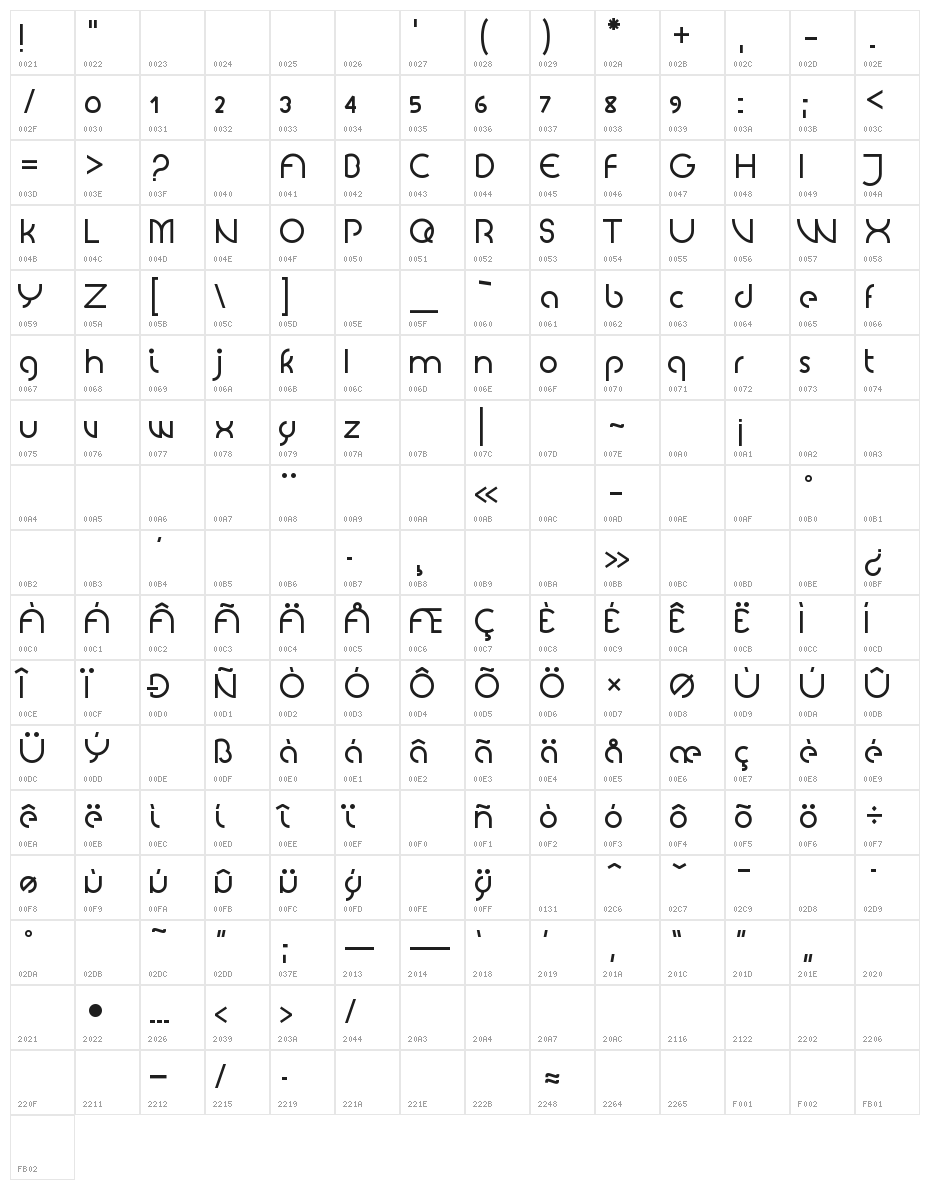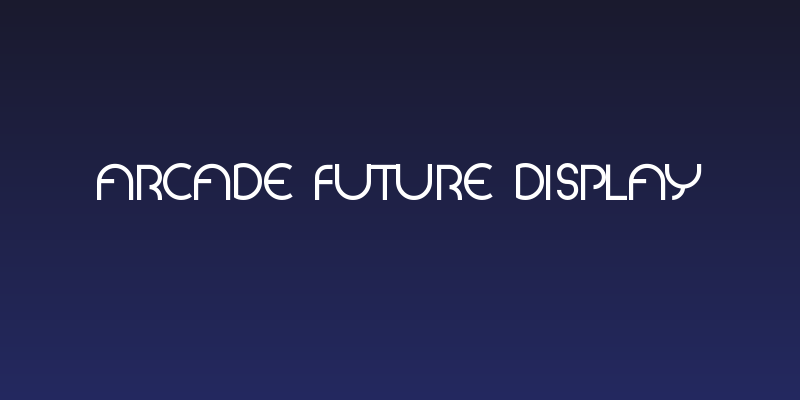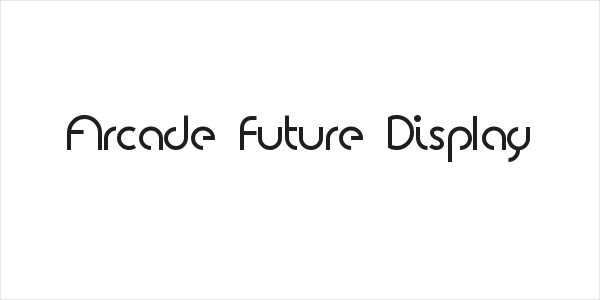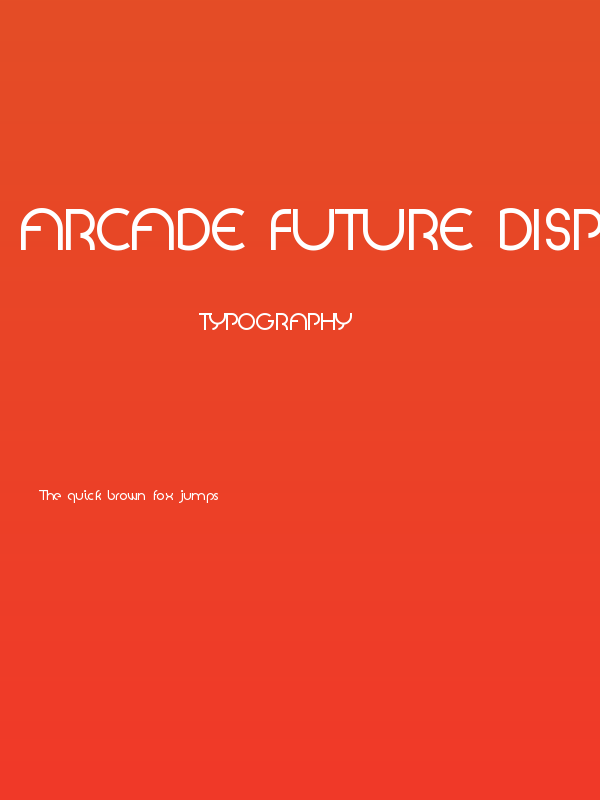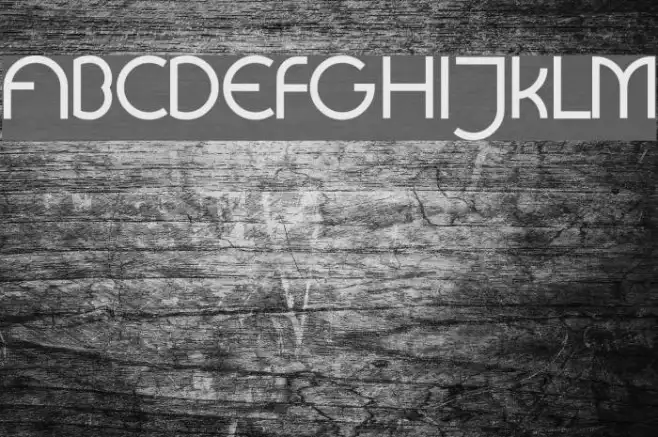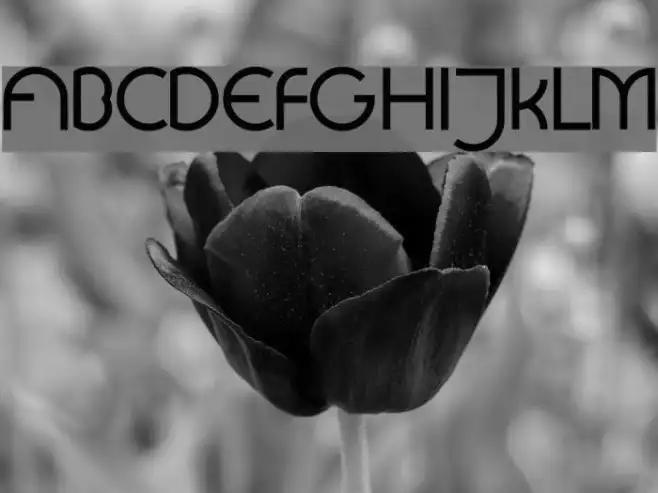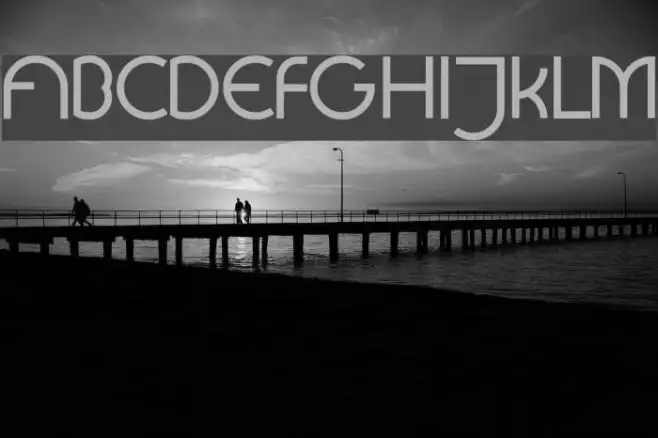
Arcade Future Display Font
Arcade Future Display Description
This font features a futuristic and geometric design, characterized by clean lines and rounded edges. The uppercase and lowercase letters maintain a consistent height, creating a uniform appearance. The numerals are bold and easily distinguishable, while the special characters complement the overall style with their minimalist design. The font's modern aesthetic makes it suitable for digital and tech-related projects, offering a sleek and contemporary look.
| Proposed Projects | Ideal for tech branding, video game titles, digital interfaces, and modern advertising. |